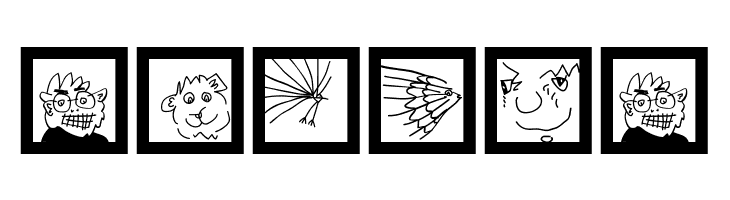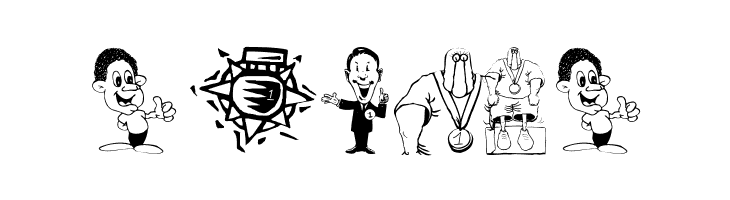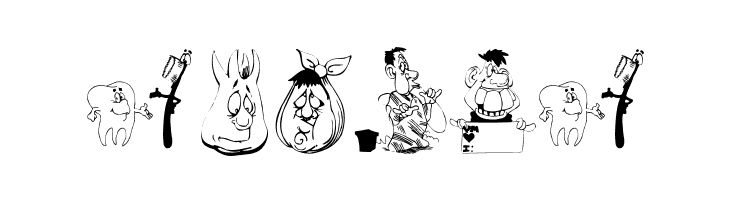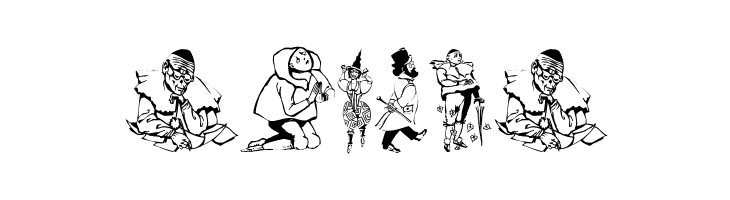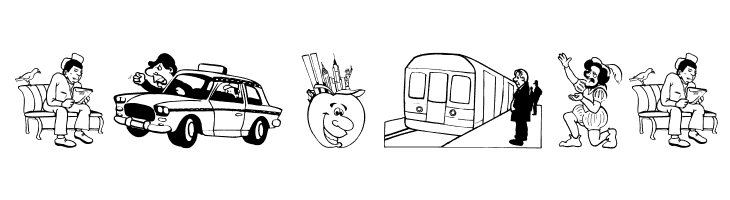
A decorative font featuring playful, hand-drawn doodles and illustrations.
A collection of intricate tribal and indigenous-inspired symbols.
Cartoonish dingbat font with weather-themed illustrations.
A decorative font made up of assorted dog and cat illustrations in various styles.
A whimsical, cartoon-style font with unique illustrations for each character.
A collection of illustrative and decorative elements with a whimsical and Halloween theme.
Illustrative depictions of sports training activities.
Cartoonish, dentistry-themed illustrative font with playful characters.
A playful, illustrated display font made of theatrical character drawings.
Cartoonish dingbat font themed around New York City scenes and characters.